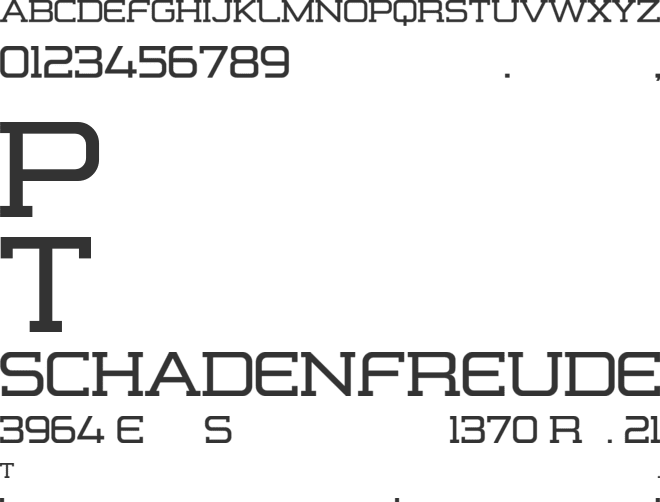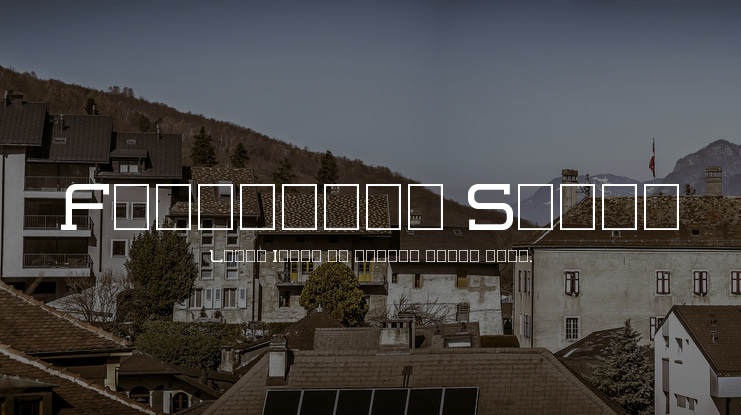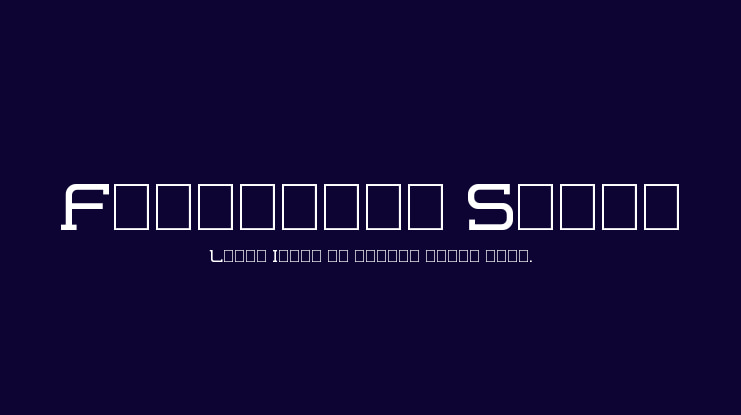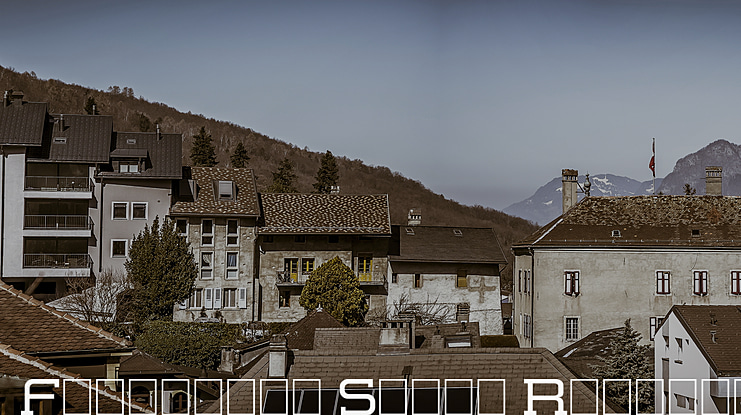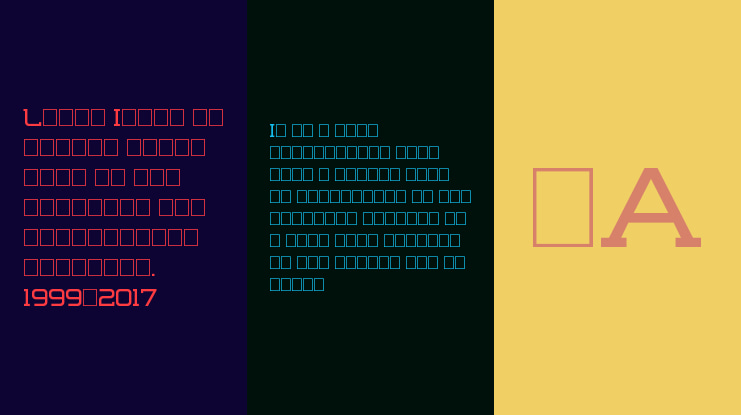
Formation Serif Font
This is the serif companion to Formation Sans - http://www.dafont.com/formation-sans.font.
At this stage, only upper case characters are present. Lower case characters will be added soon... please watch out for an update.